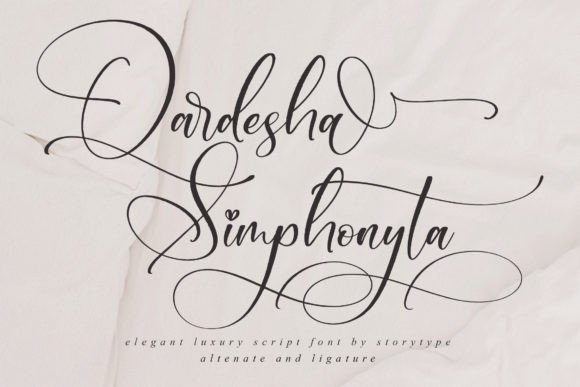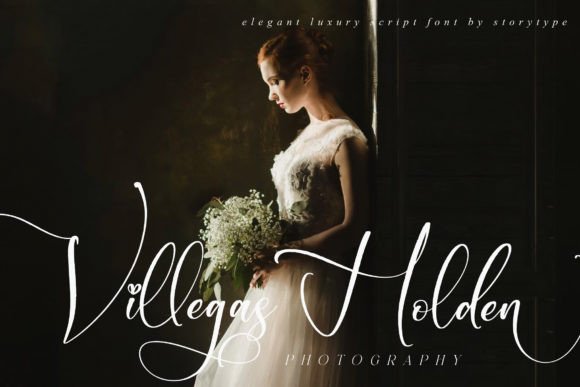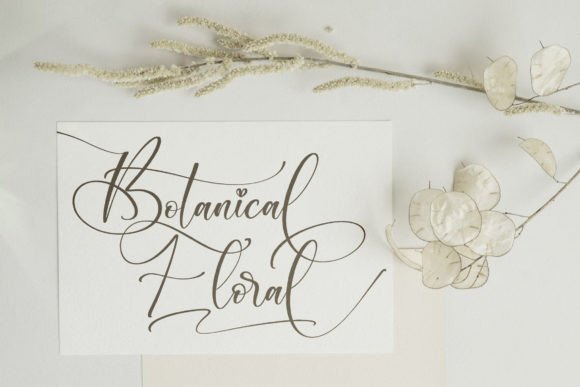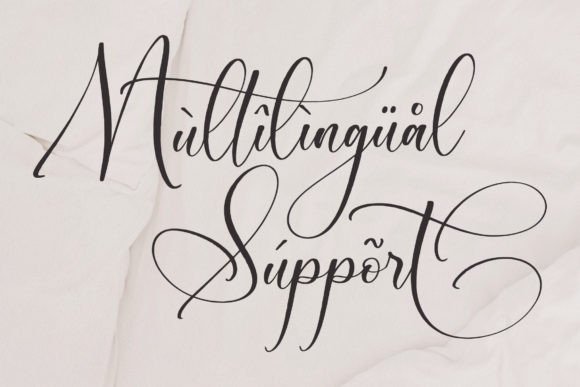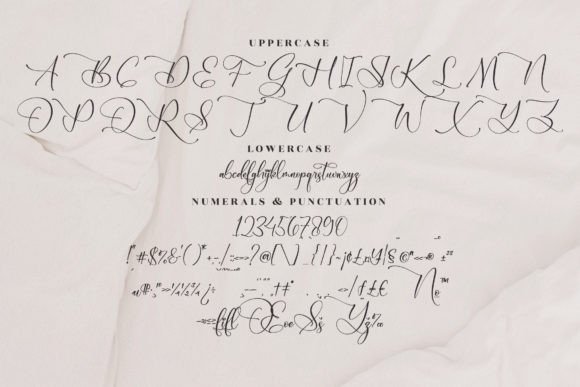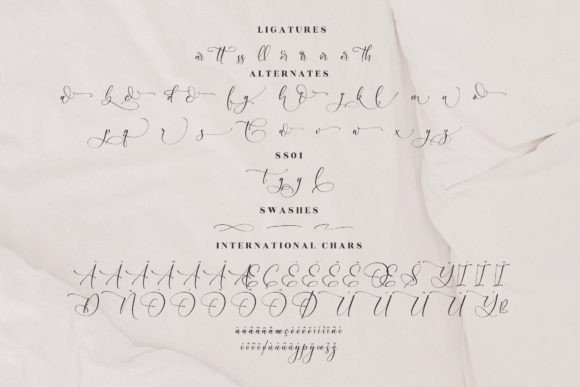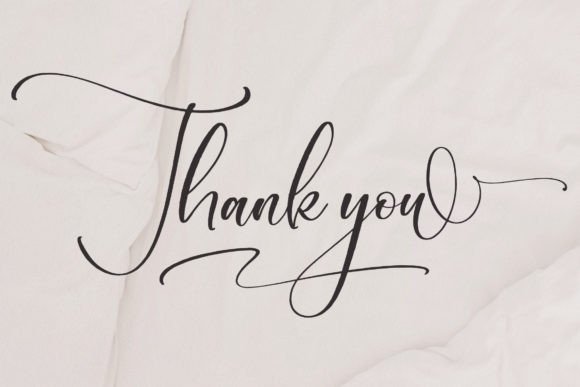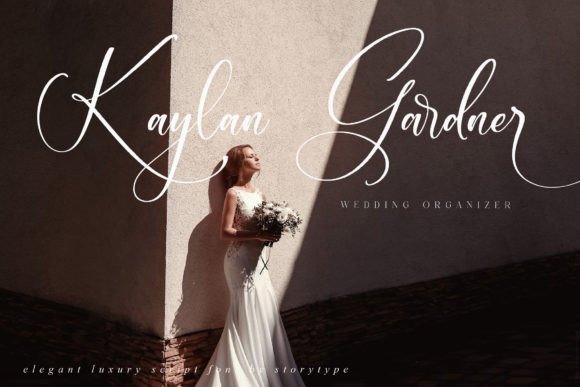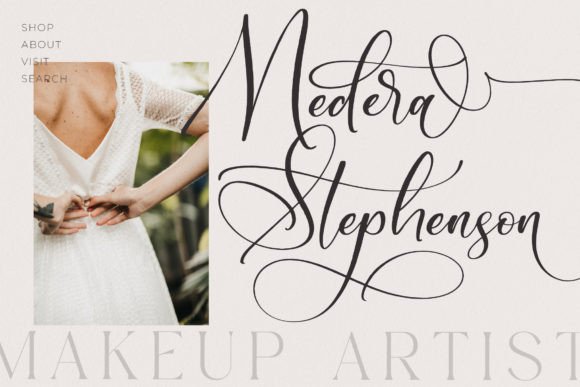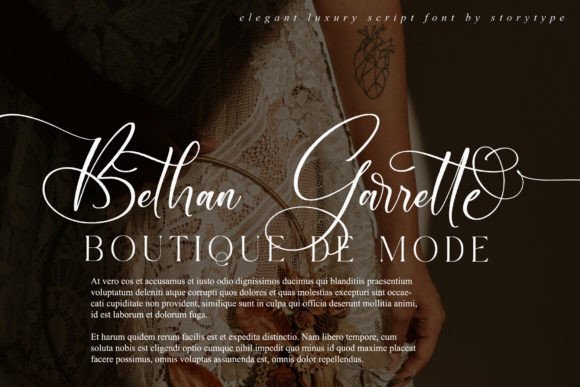
Qardesha Simphonyta Font
About Qardesha Simphonyta Font
**Qardesha Simphonyta** is a stunning and luxurious script font that stands out with its unique style and modern aesthetics. This typeface exudes elegance and luxury, making it a perfect choice for a wide range of design applications. Whether you’re working on an elegant and luxurious logo, book or movie title design, fashion brand, magazines, clothing labels, lettering, quotes, or any other project that demands sophistication, **Qardesha Simphonyta** is designed to impress.
The font’s elegant and luxurious design adds a touch of refinement and class to your creative work. It is particularly well-suited for projects that require a high-end and upscale appearance, elevating your designs to a level of luxury and style.
In the world of design, fonts play a pivotal role in conveying a sense of prestige, elegance, and visual identity. **Qardesha Simphonyta** excels in these aspects by offering a script style that is both luxurious and modern. Its aesthetics infuse your designs with a sense of opulence and contemporary flair, making them truly exceptional and memorable.
In summary, **Qardesha Simphonyta** is more than just a font; it’s an elegant and luxurious design tool that can transform your projects into symbols of sophistication and style. Its unique script style is ideal for designers seeking to create work that is both elegant and modern. Whether you’re an experienced designer or just beginning your creative journey, **Qardesha Simphonyta** is the font that can help you craft designs that radiate luxury and refinement.